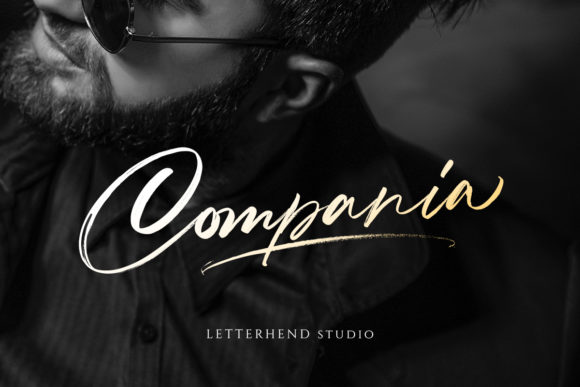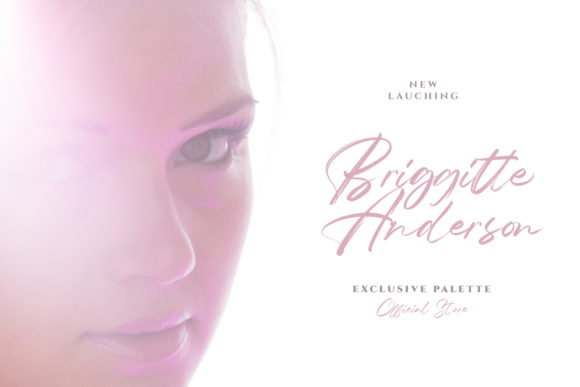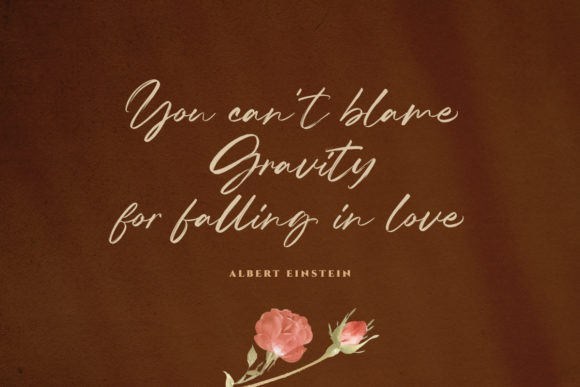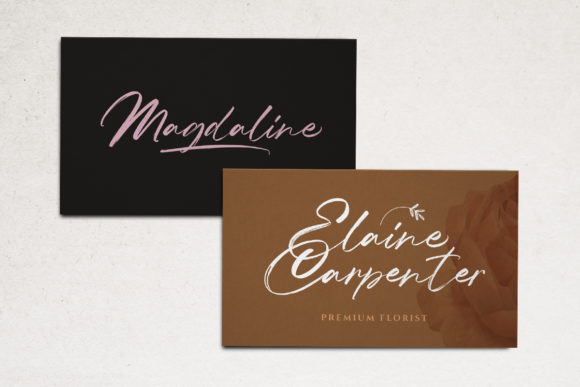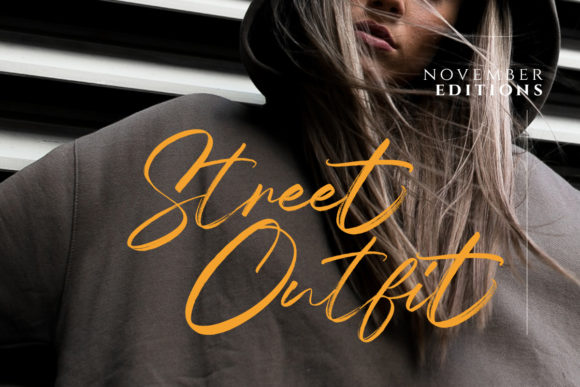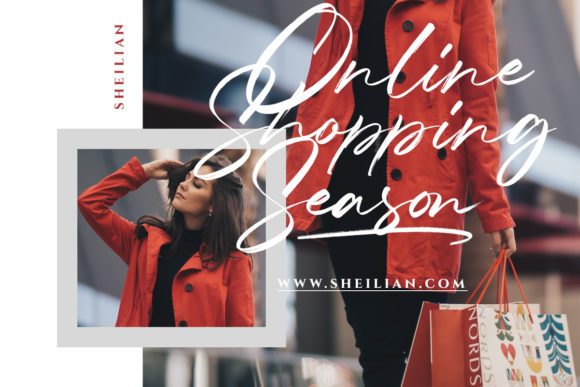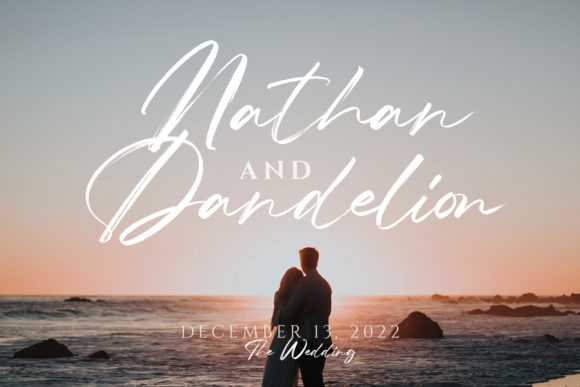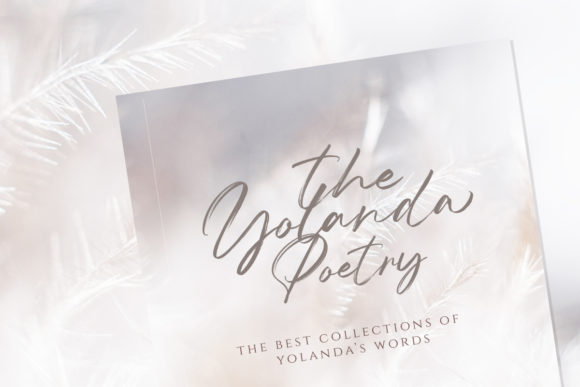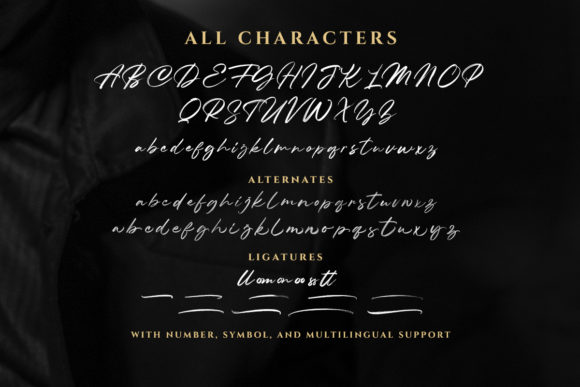
Compania Font
About Compania Font
Compania is a delicate and tasteful handwritten font, designed with the help of an outstanding brush pen. This font is PUA encoded which means you can access all of the glyphs and swashes with ease! It features a varying baseline, smooth lines, gorgeous glyphs and stunning alternates.